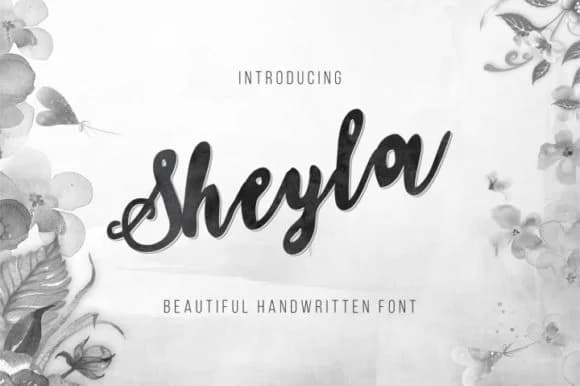
Sheyla Font by bywahtung is a flowing handwritten brush script that brings authentic character and contemporary polish to any design project. The naturally expressive strokes create an organic, hand-crafted aesthetic that works beautifully across both print and digital applications without sacrificing legibility.
Whether you're designing wedding invitation suites, crafting artisan product labels for small business goods, or building cohesive visual branding for boutique lifestyle companies, Sheyla's graceful letterforms deliver visual impact while maintaining sophistication. Designers consistently choose this brush script for creating engaging social media graphics, custom greeting cards, and hand-lettered event stationery that captures attention in crowded digital feeds and traditional mailboxes alike. The font's versatility also shines in fashion lookbooks, food and beverage packaging design, and editorial layouts where the authentic human touch of hand-lettering brings warmth and personality.
The brush weight offers a single, refined style that maintains legibility across sizes while preserving the loose, hand-drawn quality that resonates with modern audiences seeking genuine, unconventional typography. Sheyla's balanced construction makes it ideal for both headlines and body text applications, giving you creative flexibility in your design work. Whether creating high-end product packaging or casual brand communications, this handwritten script delivers the approachable sophistication that contemporary brands are seeking. Get Sheyla Font on Creative Fabrica and add this expressive brush script to your design collection.
Sheyla Font is a script font that shines as a display or heading face. Pair it with a clean sans-serif or serif font for body text β the contrast creates a clear hierarchy while the two styles stay balanced and easy to read.
Sheyla Font